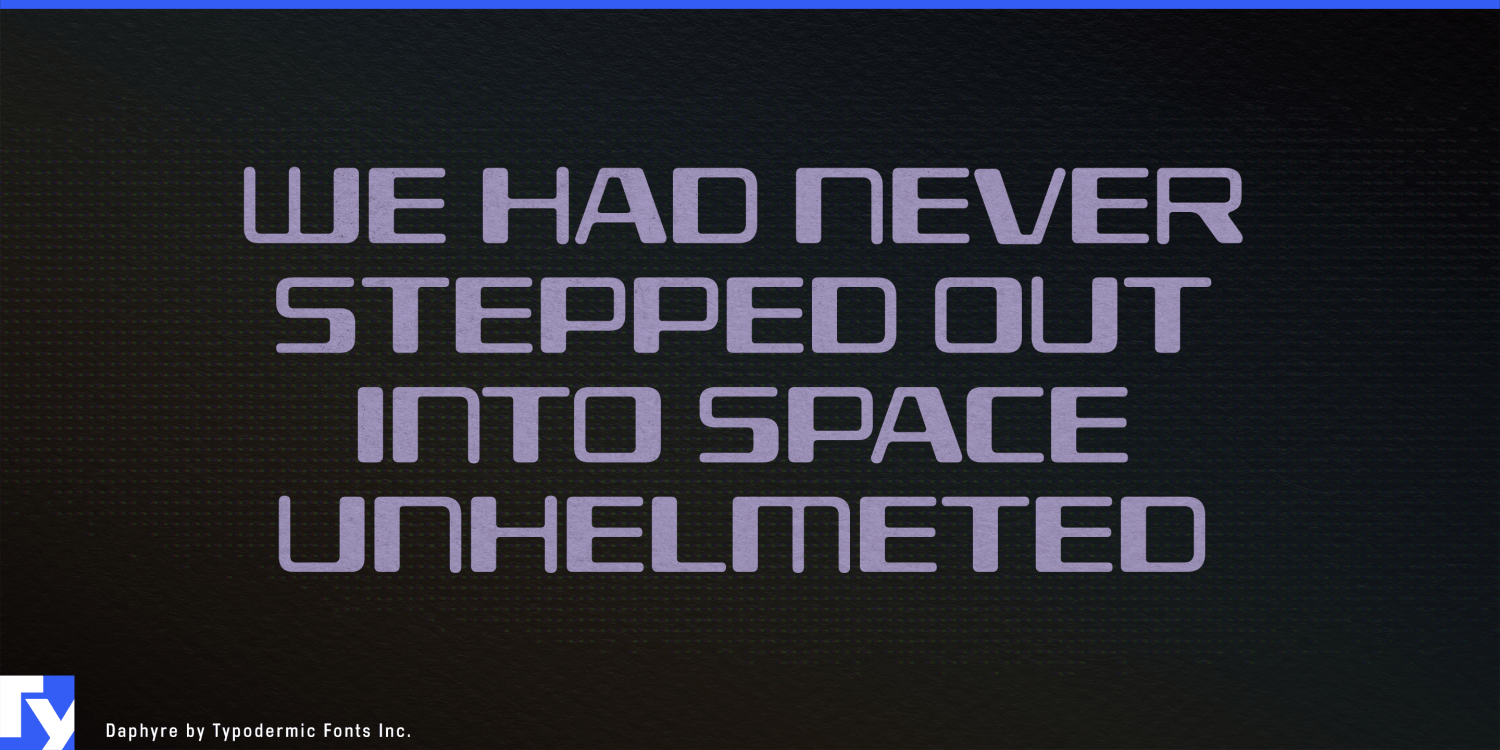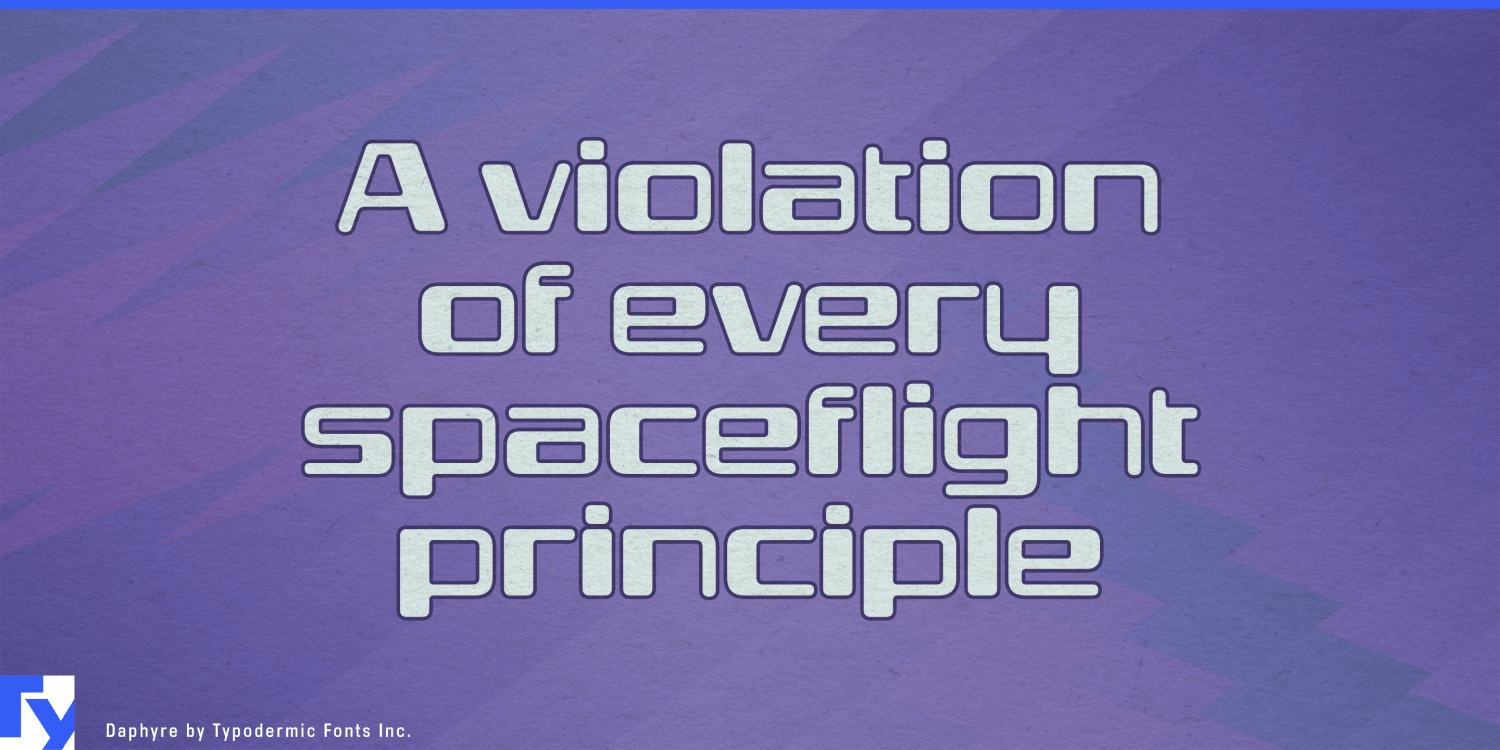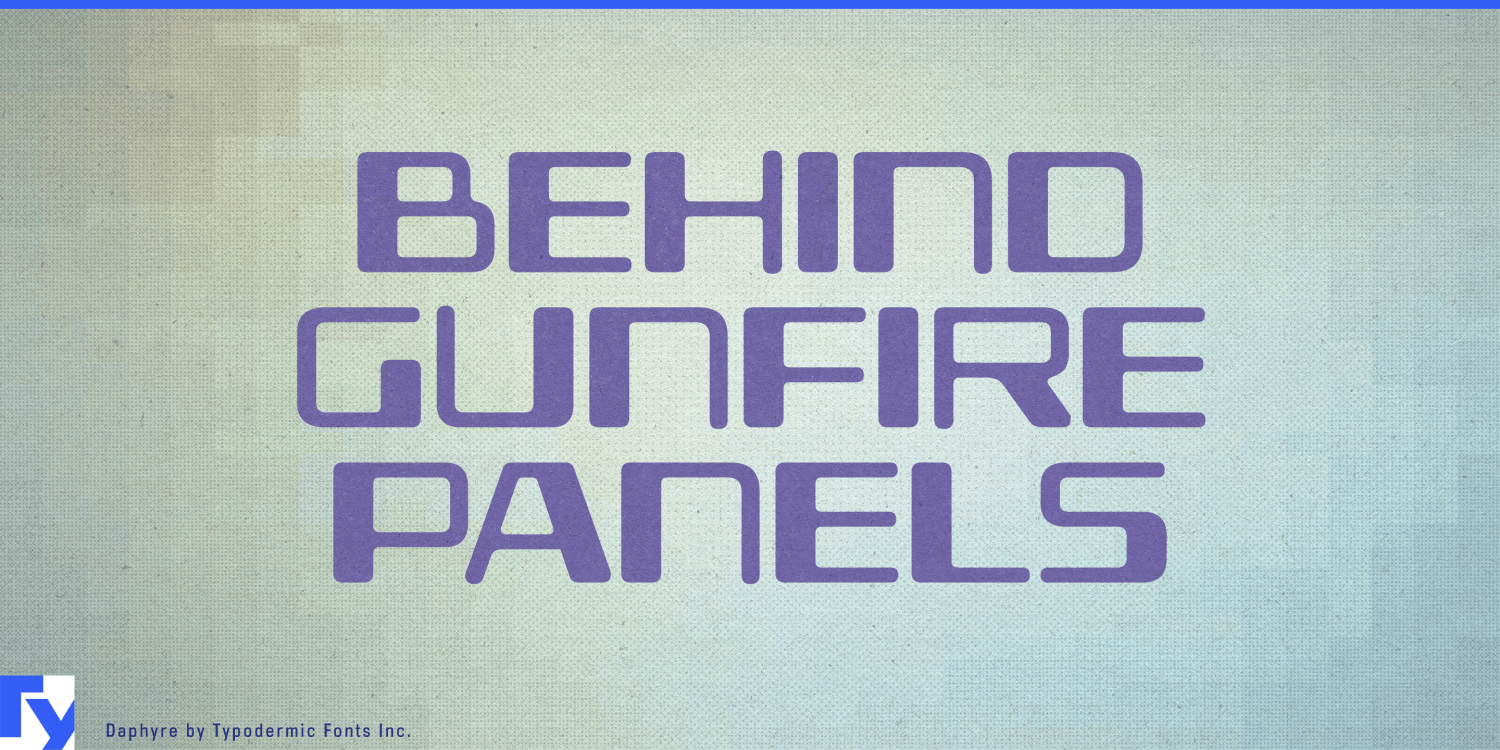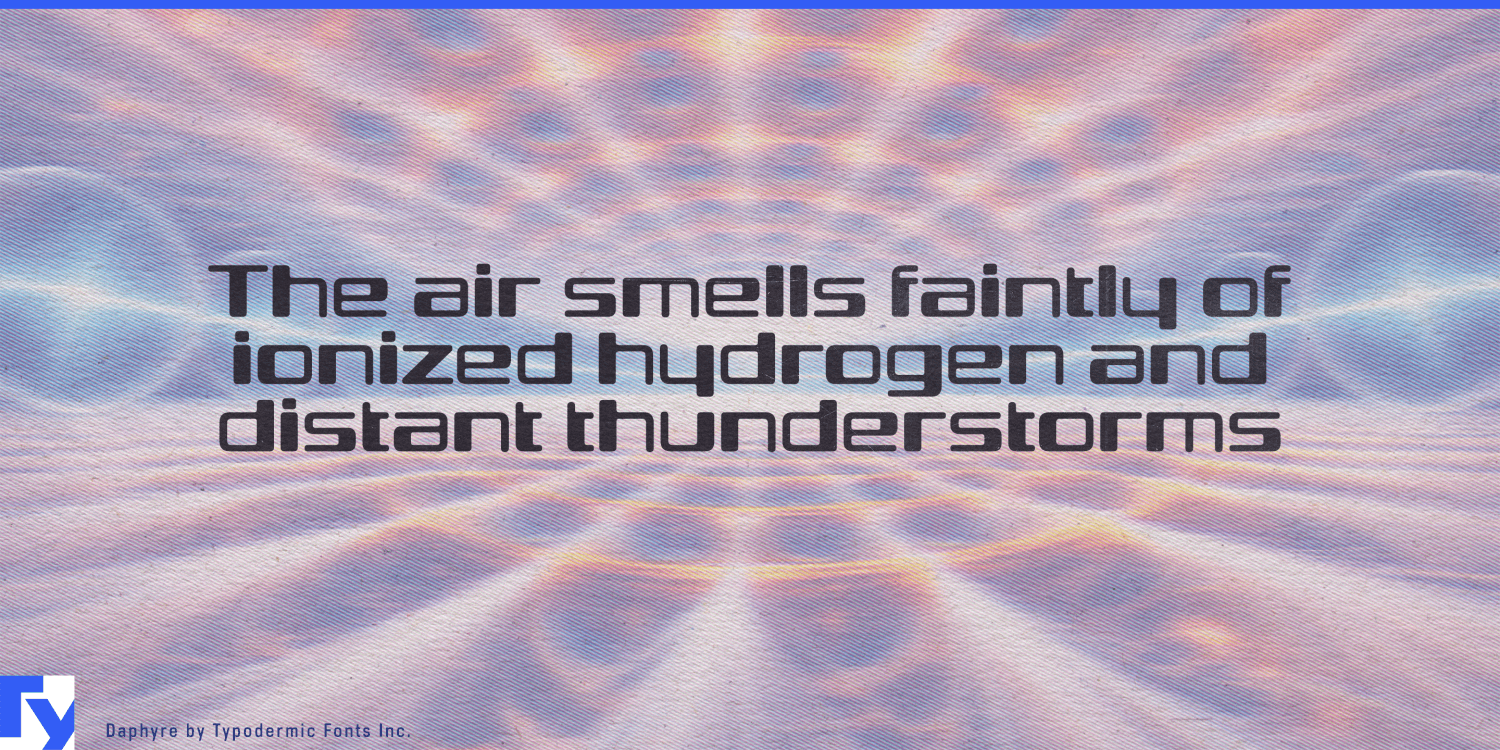
Welcome to the cutting edge of typography with Daphyre, a headline typeface that doesn’t just nod to the future—it defines it. This isn’t merely a font; it’s a time-bending marvel that fuses the magnetic charm of 1960s MICR-inspired…